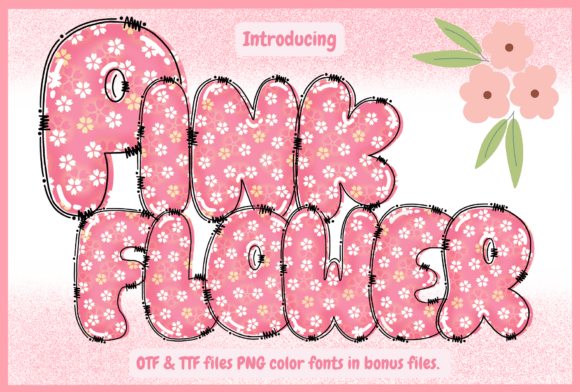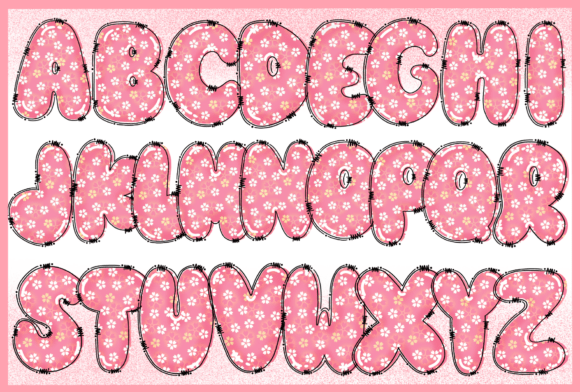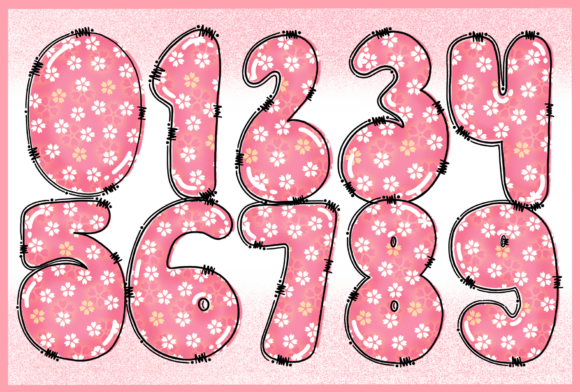
Pink Flower Font
About the Pink Flower Font
Introducing the Pink Flower Font, a beautifully crafted typeface designed to elevate your creative projects. Pink Flower is a bubbly and vibrant display font bursting with charm. Decorated with adorable floral patterns, it’s perfect for kids’ products, girly branding, crafts, and anything that needs a dose of fun and femininity.